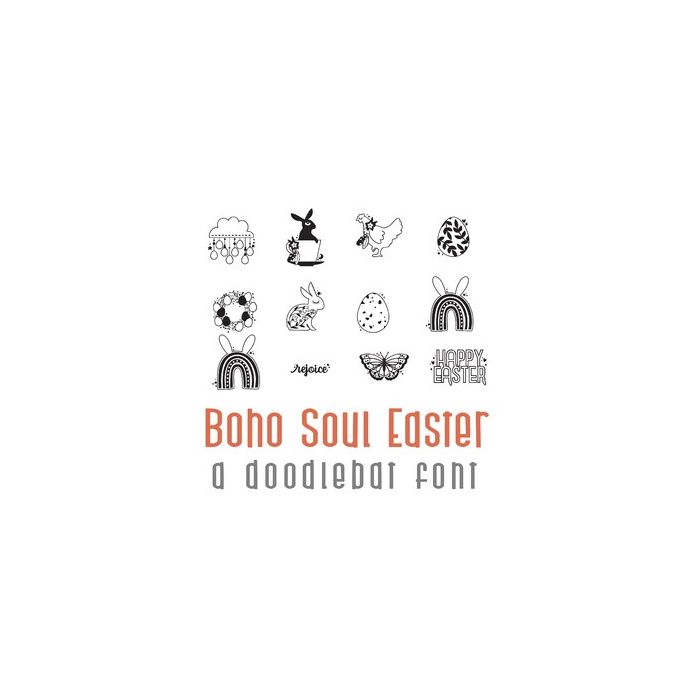
This fun doodlebat font features 26 boho styled Easter and Spring items perfect for nurserys, crafts, gifts, decor, planner stickers, scrapbook pages and more!